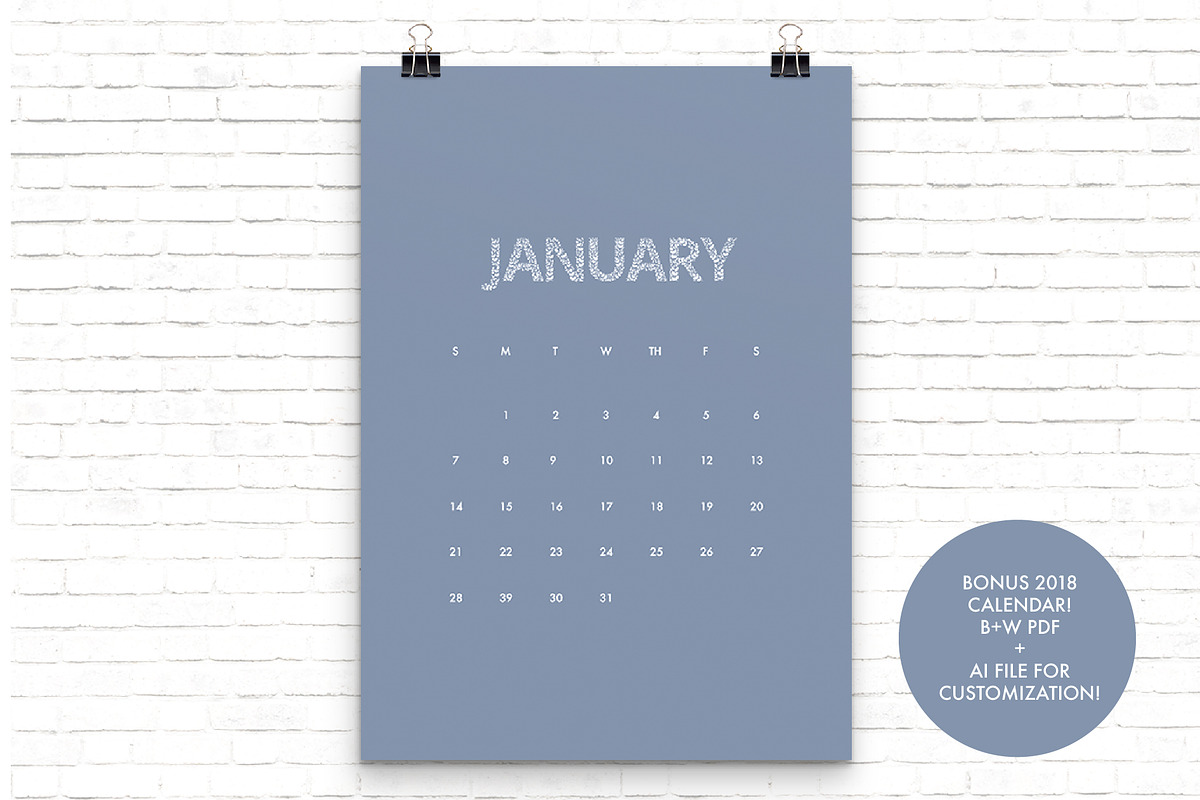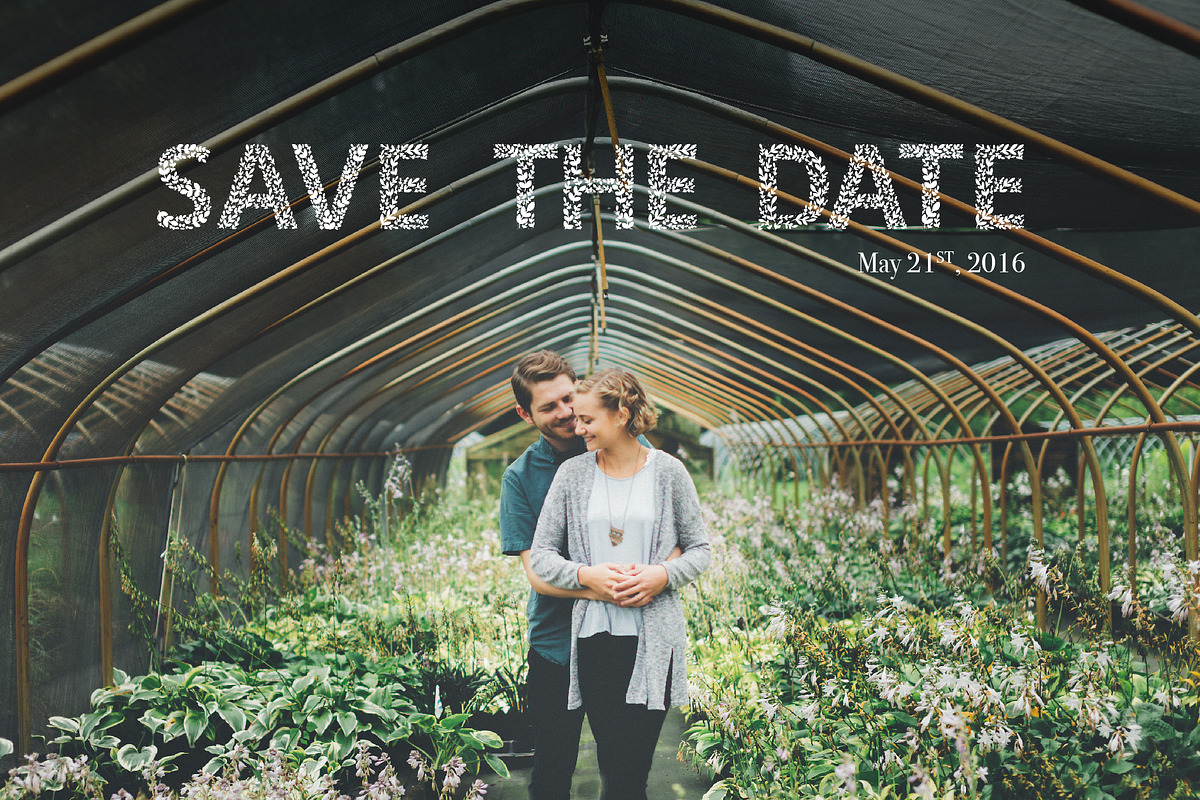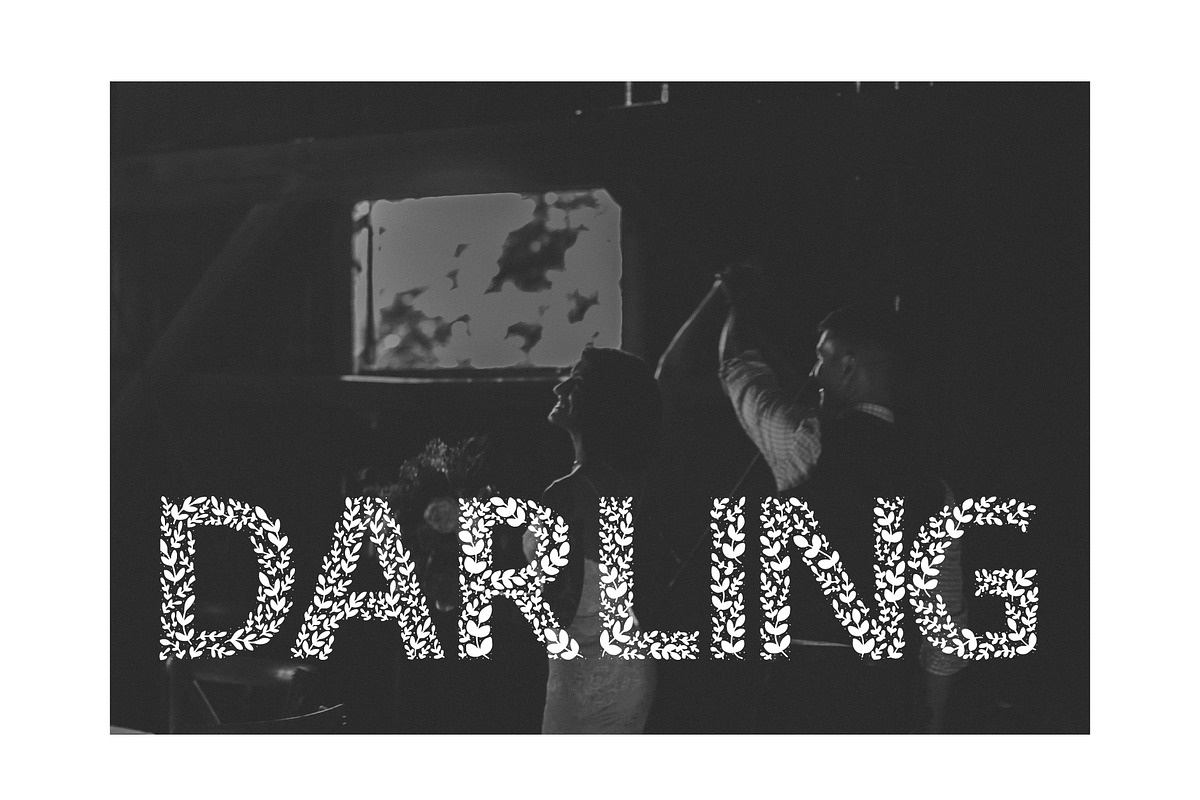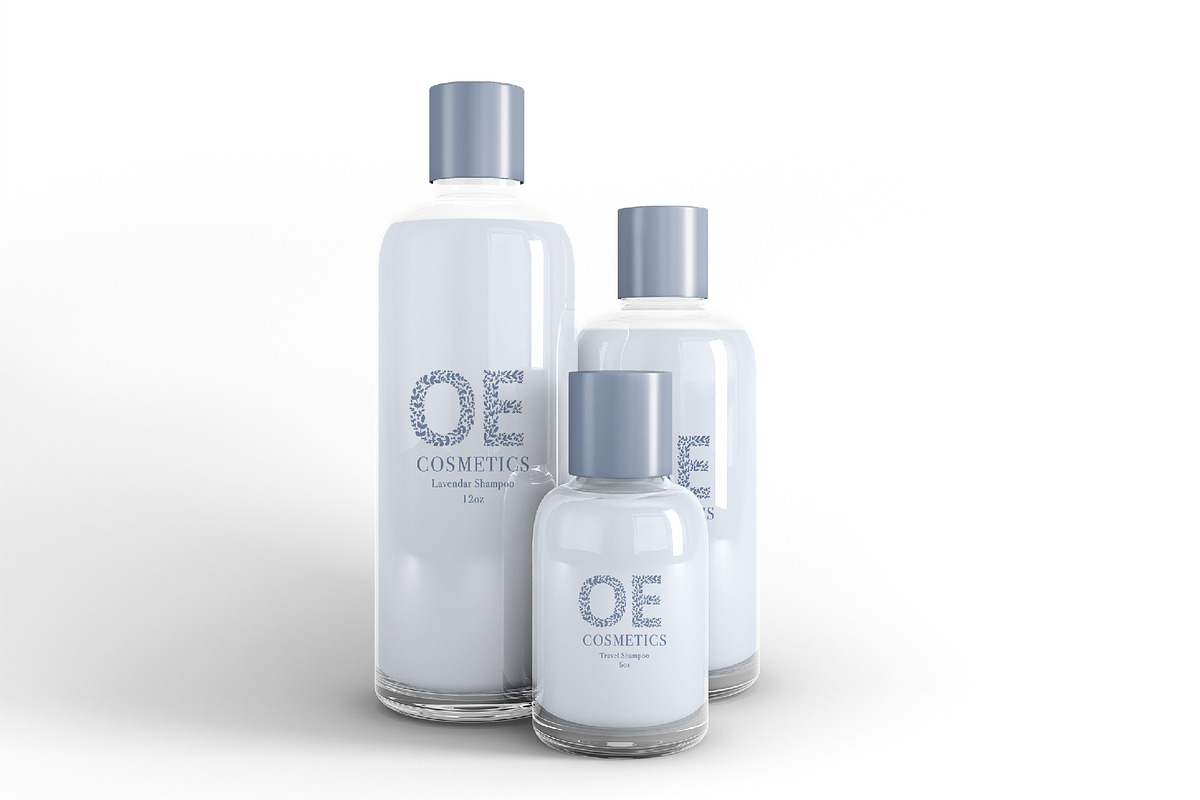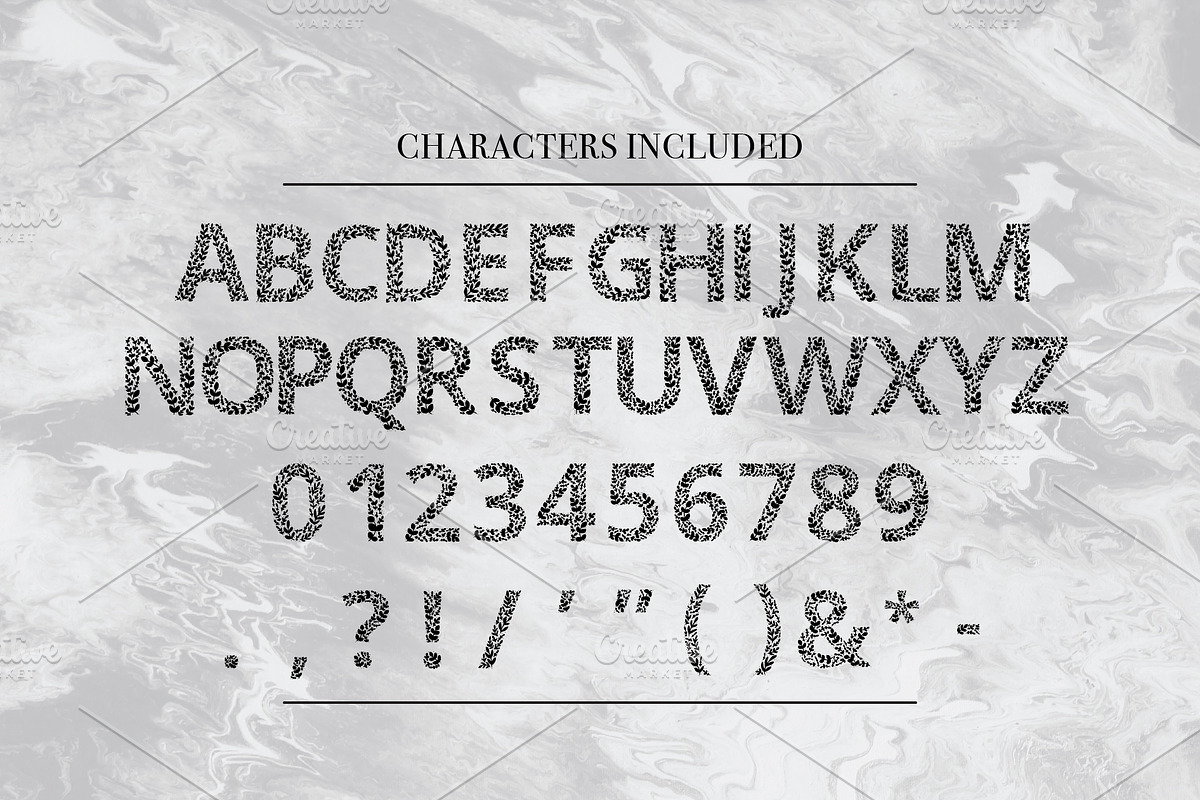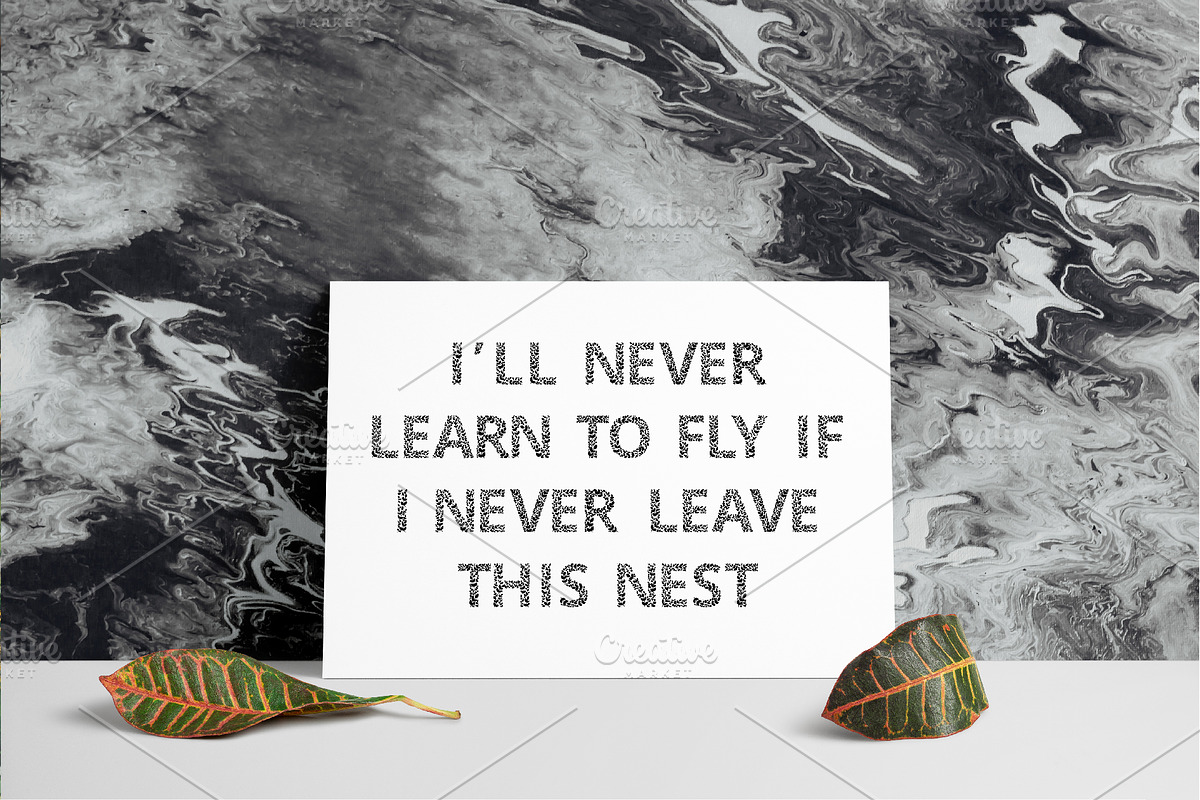
Ivory Black Display Font
Ivory Black - A handmade, floral display font
Simple, fun, and sophisticated, Ivory Black will add beautiful detail to all of your designs. Perfect for branding, logos, weddings and engagements, and typographic designs. Each uppercase letter was carefully drawn by hand and converted into a working font.
Pairs beautifully with: -Bodoni -Futura
Ivory Black Alphabet: -26 Uppercase characters -Numbers 0-9 -Basic punctuation